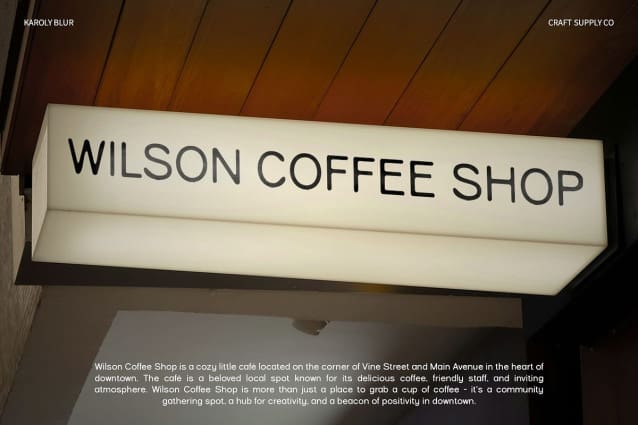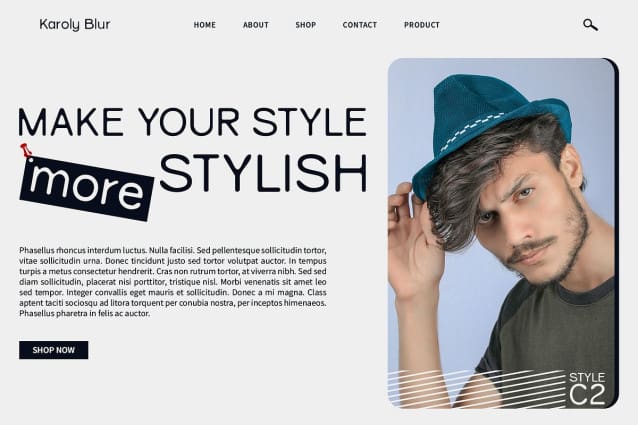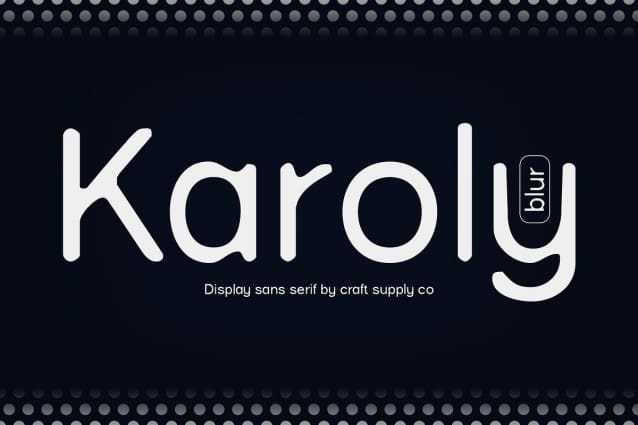
Karoly Blur Font
Karoly Blur Font is a sans serif font with a blur style, perfect for contemporary designs. Its clean and sleek design combined with blurred elements creates a unique and modern look, ideal for posters, branding, and other projects that require a bold statement.
With its smooth lines and blurred details, Karoly Blur offers a fresh take on sans serif fonts. The modern style and blur effect create a captivating and dynamic look, perfect for designs that demand attention and convey a sense of innovation and modernity.
Whether you’re designing a trendy website or creating a modern advertisement, Karoly Blur is sure to make an impression. Its blur style and modern aesthetic make it perfect for designs that need a touch of contemporary flair.
Despite its distinctive appearance, Karoly Blur is versatile and easy to use. The font works well in both large and small sizes, making it suitable for a variety of applications, from headlines and banners to body text and more. With its blend of modern style and blur effect, Karoly Blur adds a captivating and modern touch to any design.